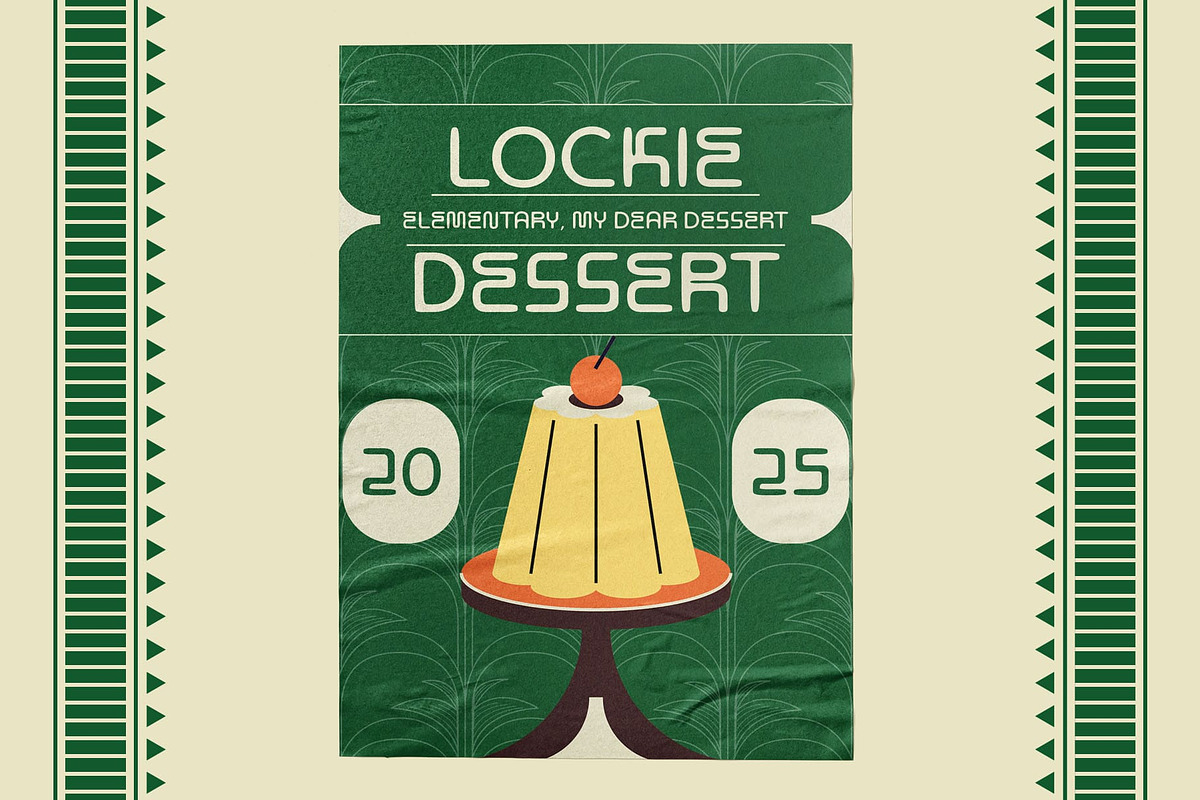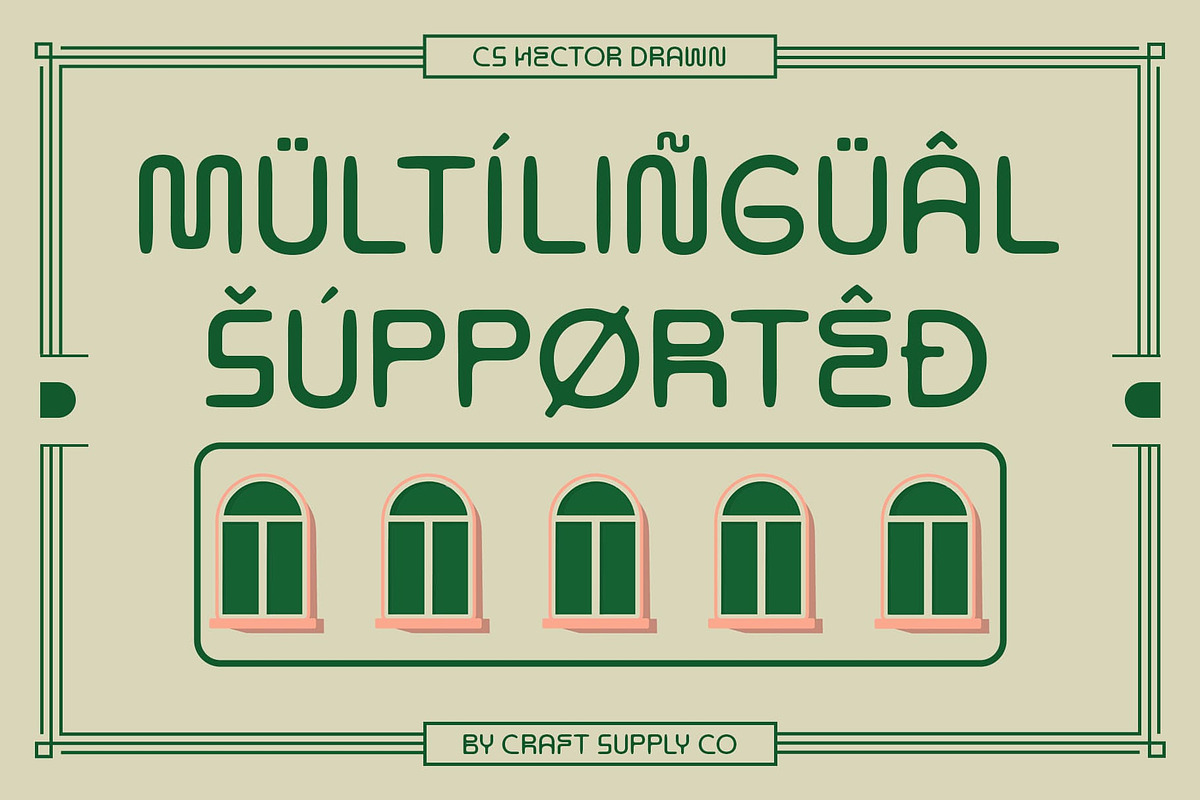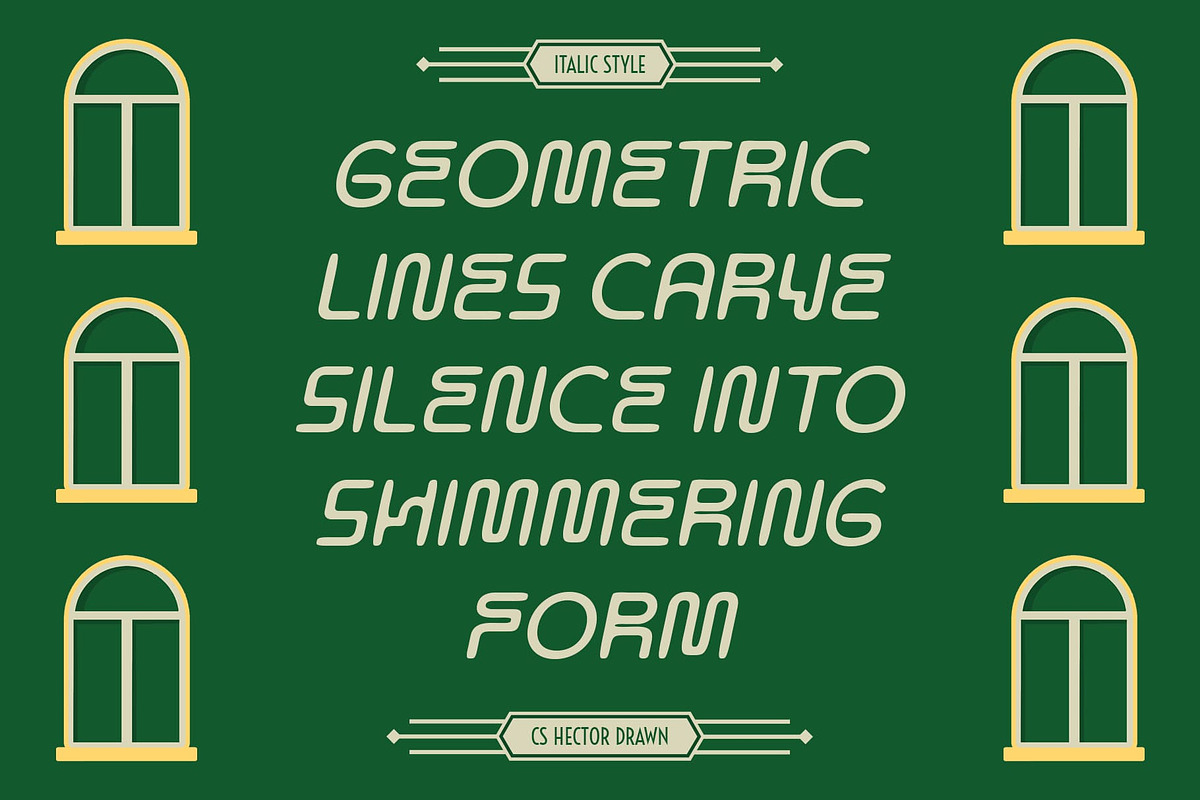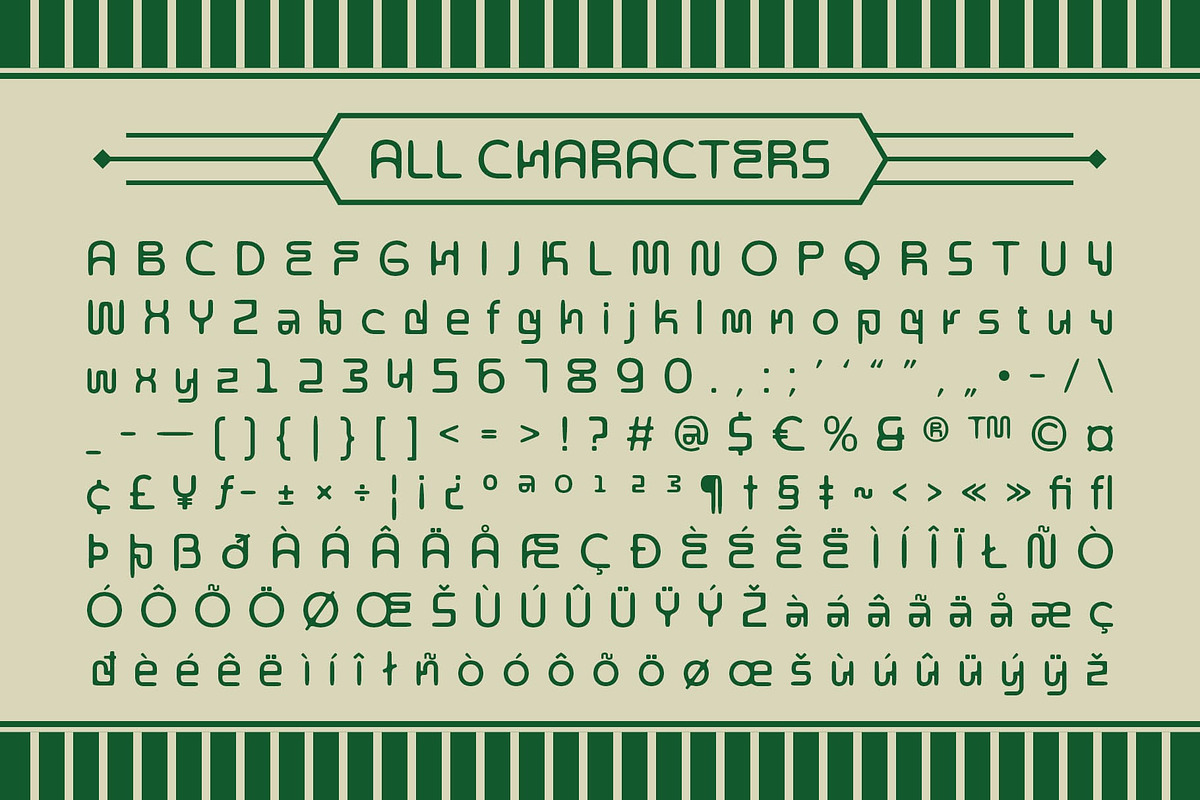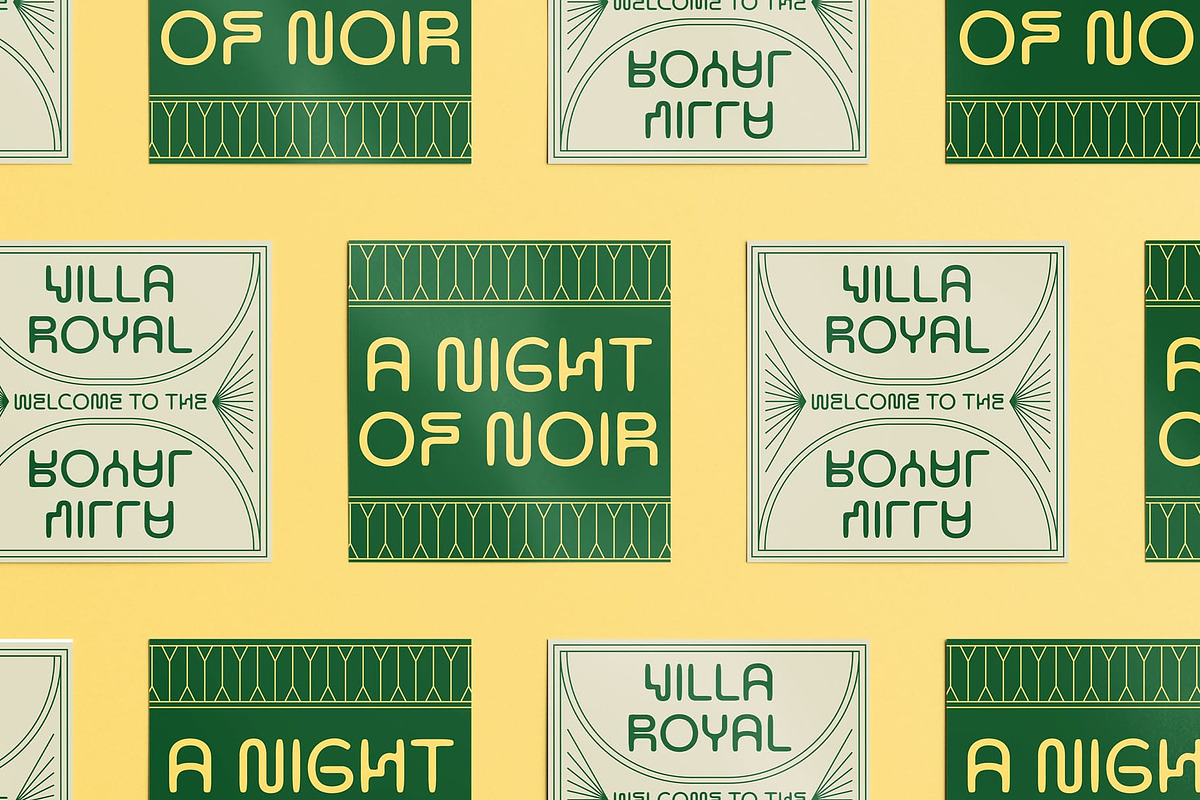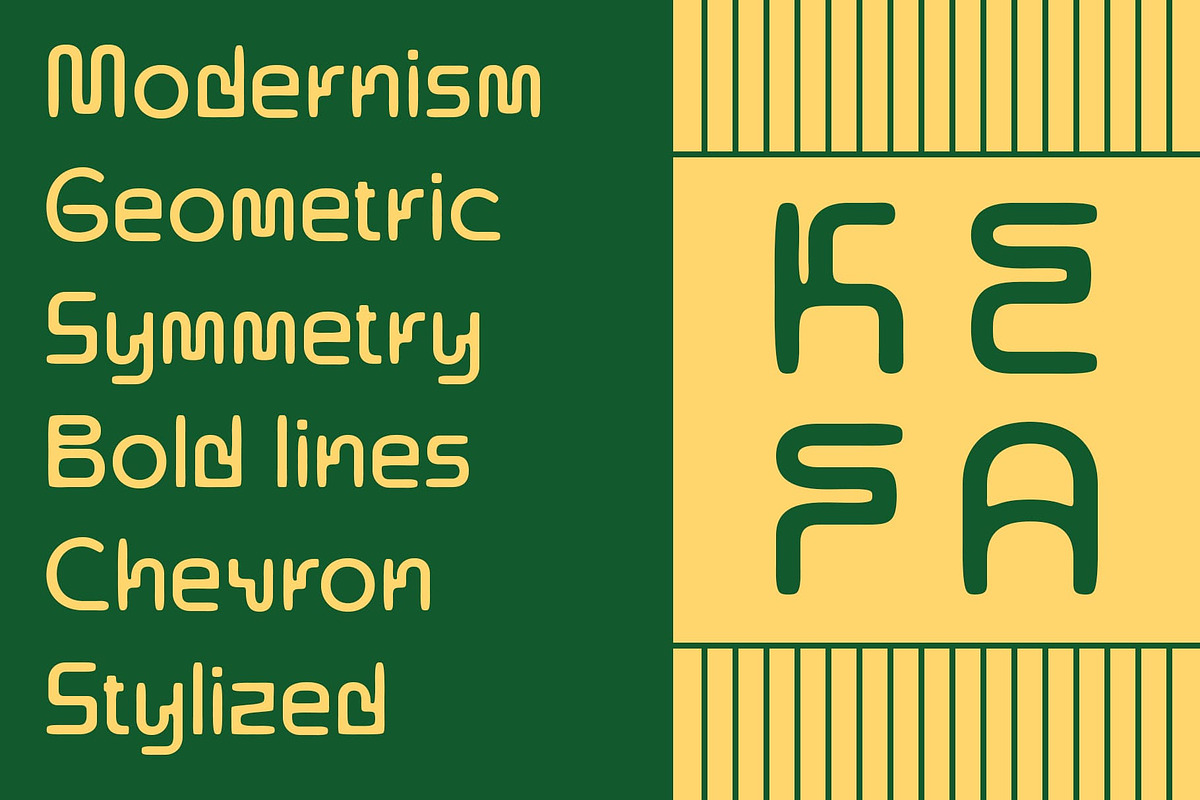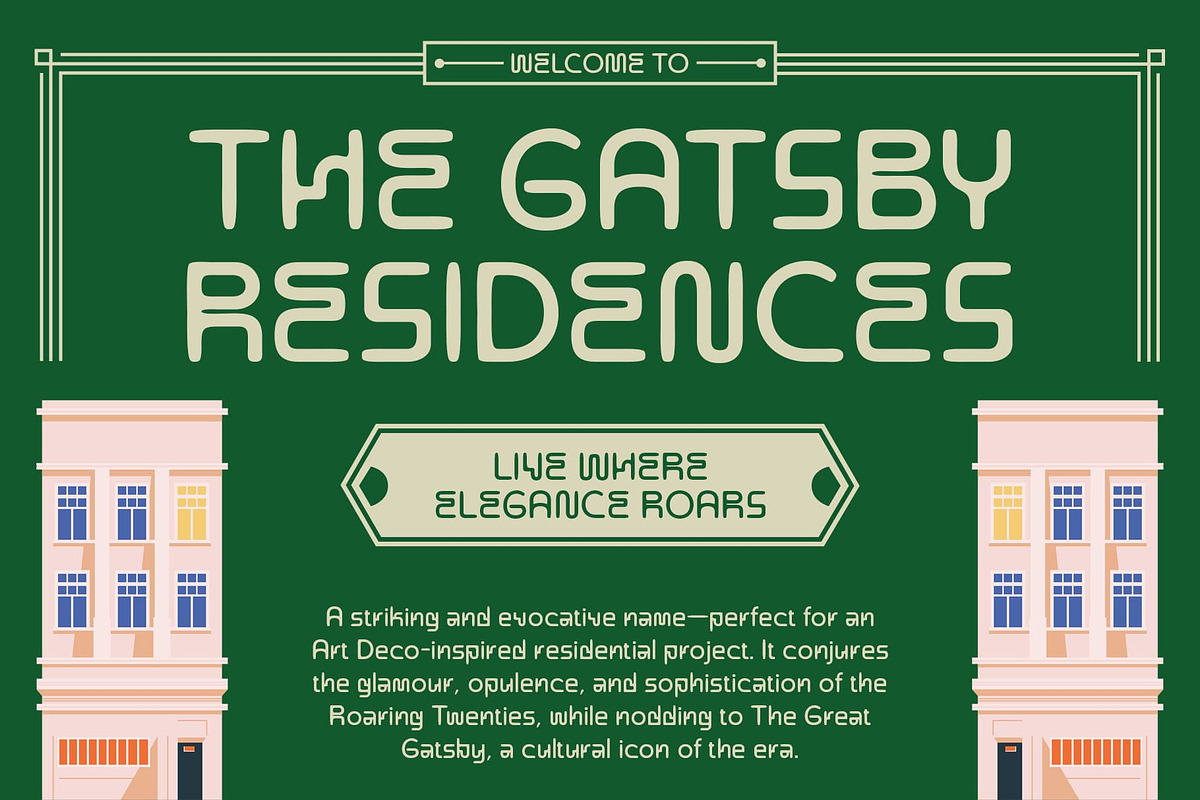
CS Hector Drawn
CS Hector Drawn – Art Deco Elegance with a Handcrafted Twist
Geometric Precision with Art Deco Influence CS Hector Drawn is a modern display sans-serif font inspired by the structured elegance of the Art Deco era. With sharp geometry, balanced proportions, and a strong visual rhythm, it captures the sophistication of classic design while remaining firmly rooted in contemporary aesthetics.
Drawn Effect for Artistic Character The font features a unique drawn effect that softens its precision, adding a handcrafted, organic quality. This subtle imperfection brings warmth and personality, enhancing its visual appeal while maintaining its clean, stylish form.
Perfect for Luxury Branding and Editorial Design This modern art deco font is ideal for luxury branding, creative editorials, and visual projects that require a sophisticated yet contemporary appeal. Whether used for upscale packaging, high-end magazine layouts, fashion branding, or elegant logos, this font’s versatile and refined style ensures it fits seamlessly into any premium design context.
A Stylish Fusion of Classic and Contemporary By combining the geometric elegance of Art Deco with a unique handcrafted texture, this modern display sans serif font offers the perfect balance of classic and modern design. This font makes a bold statement while remaining refined and sophisticated, allowing it to elevate any project in need of a distinct, stylish, and creative touch.